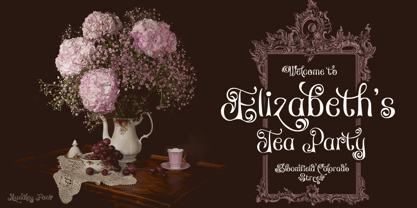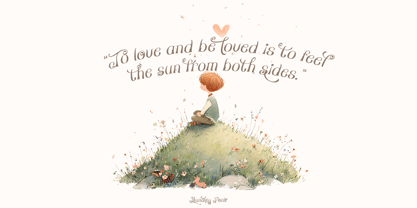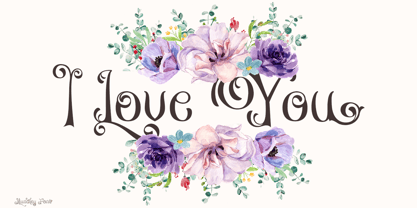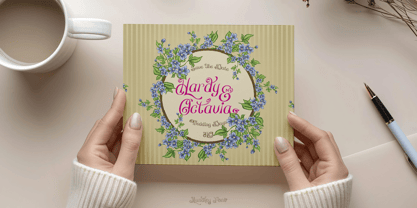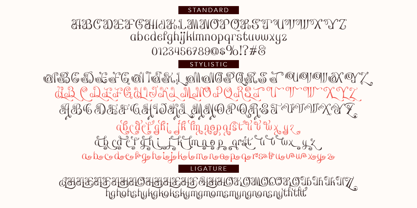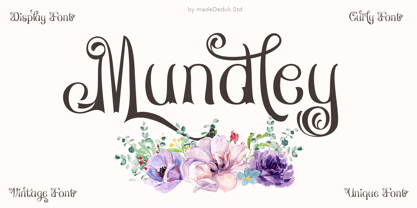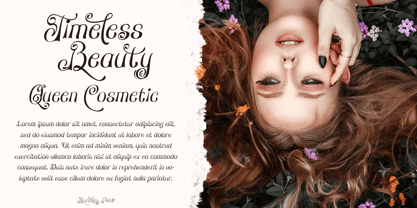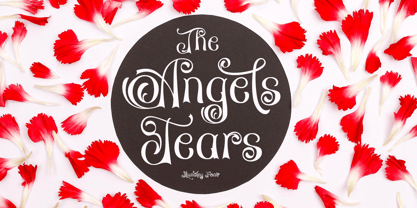
Mundley
by madeDeduk
The Mundley Font Family was designed by madededuk and published by madeDeduk. Mundley contains 2 styles and family package options.
Mundley is a display font comes with curly style with much alternative and ligature. Kind of classic decorative font with a modern touch, designed with high detail to bring stylish elegance. perfect to be applied in various formal forms such as invitations, labels, restaurant menus, logos, fashion, make up, stationery, novels, magazines, books, greeting / wedding cards, packaging, labels or any type of advertising purpose.